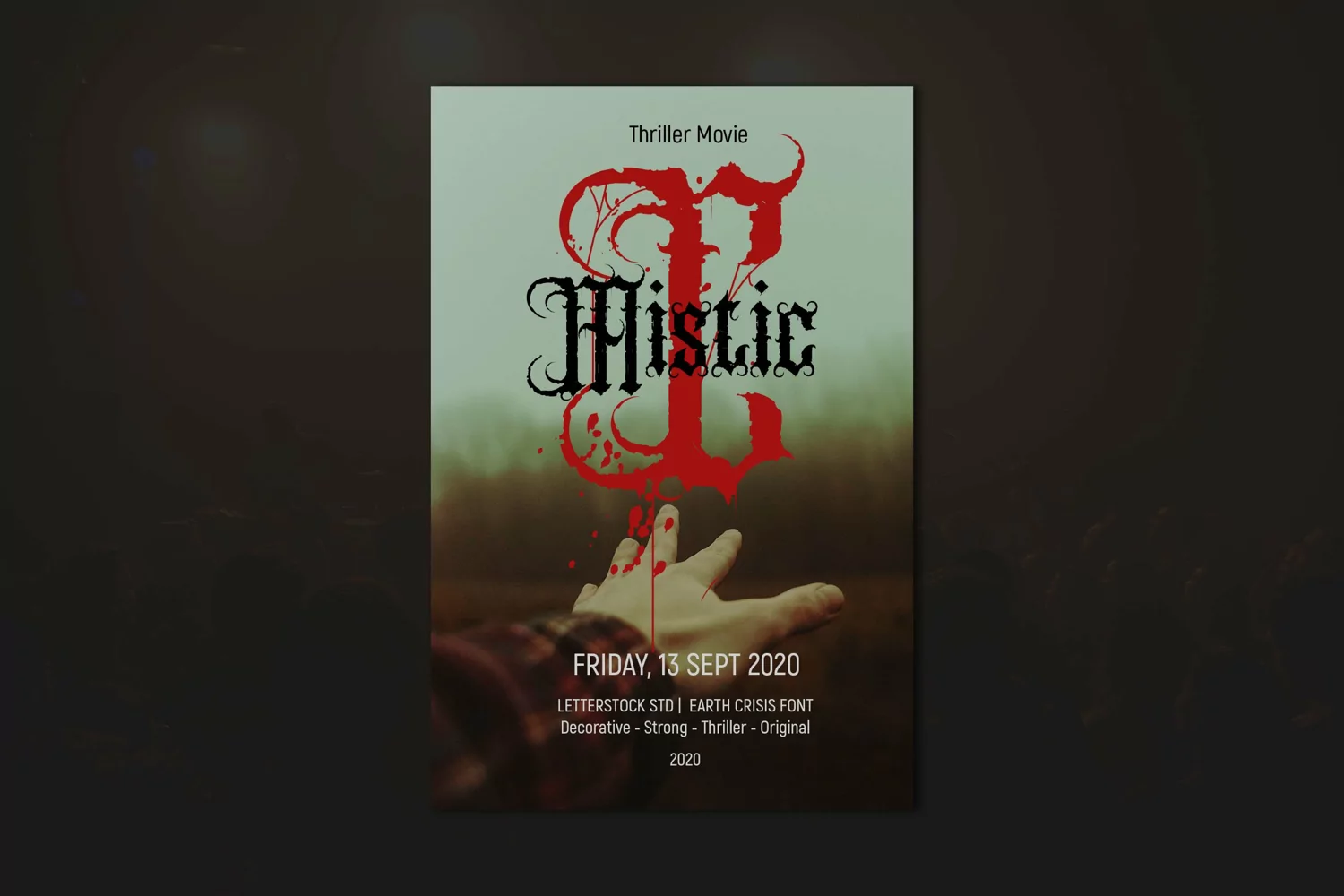
Earth Crisis| Black metal Font
EARTH CRISIS Black Metal Font
This pair was inspired by Metal band poster design that i saw on some coffee shop, It was crafted by hand specially to add natural handmade feeling in its brand identity than i make it clean with pentool.
EARTH CRISIS font has 221 character set included 29 Stylistic alternate and 3 ligature
EARTH CRISIS Font is very good looking in logo, labels, t-shirt prints, product packaging, poster, movie title and others.